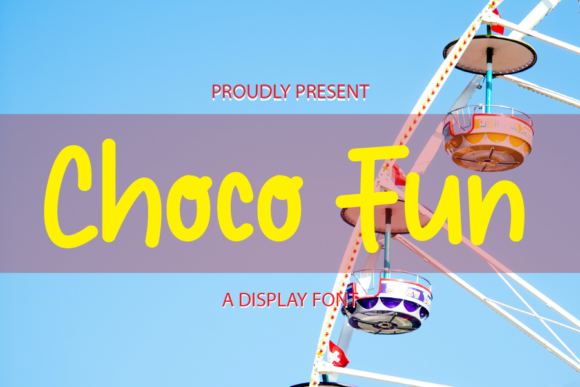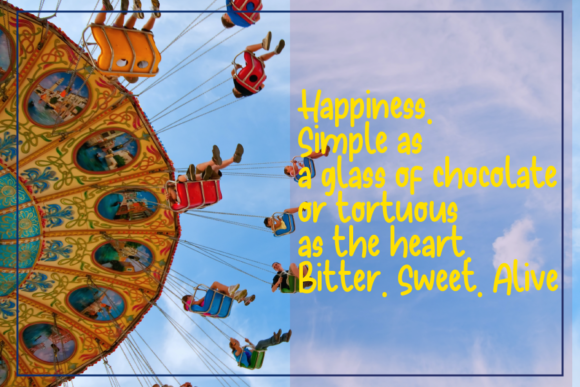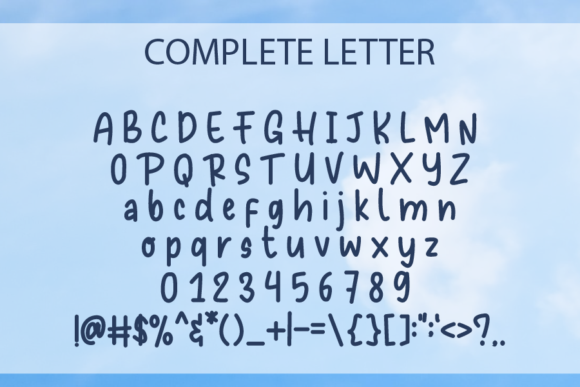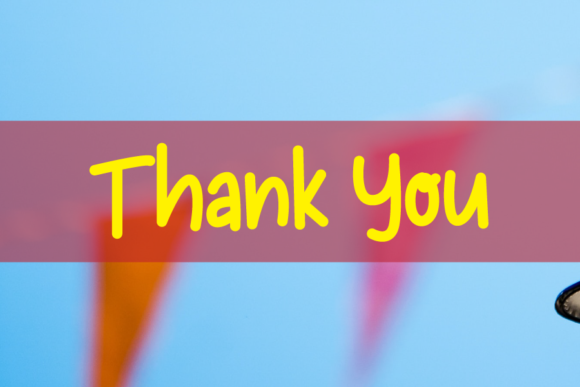
Choco Fun Font
About Choco Fun Font
Choco Fun is a modern handwritten font. Clean and a little bit quirky, this font is the perfect fit for all of your logos, branding, social media, and crafty DIY projects.